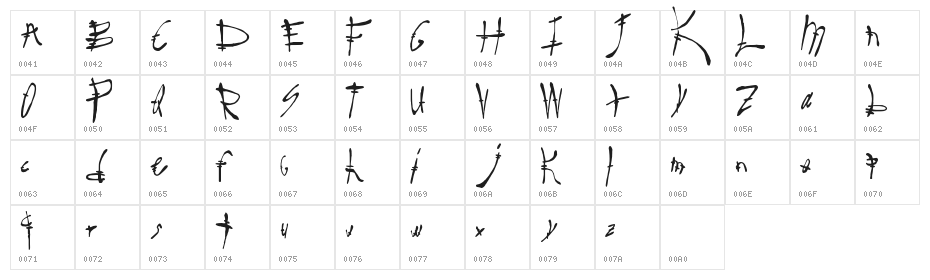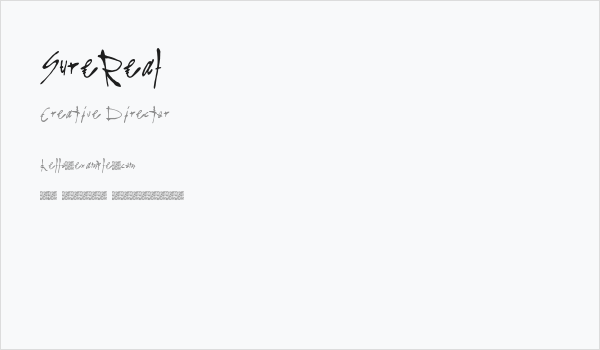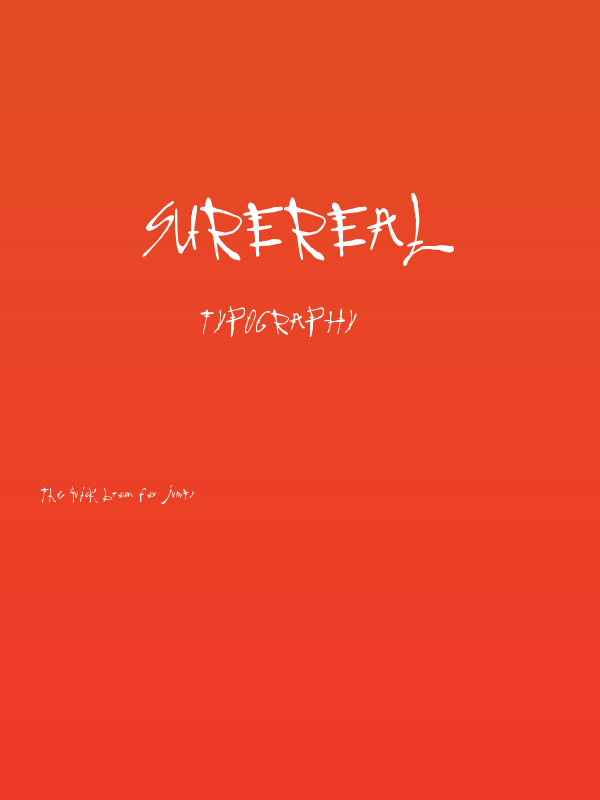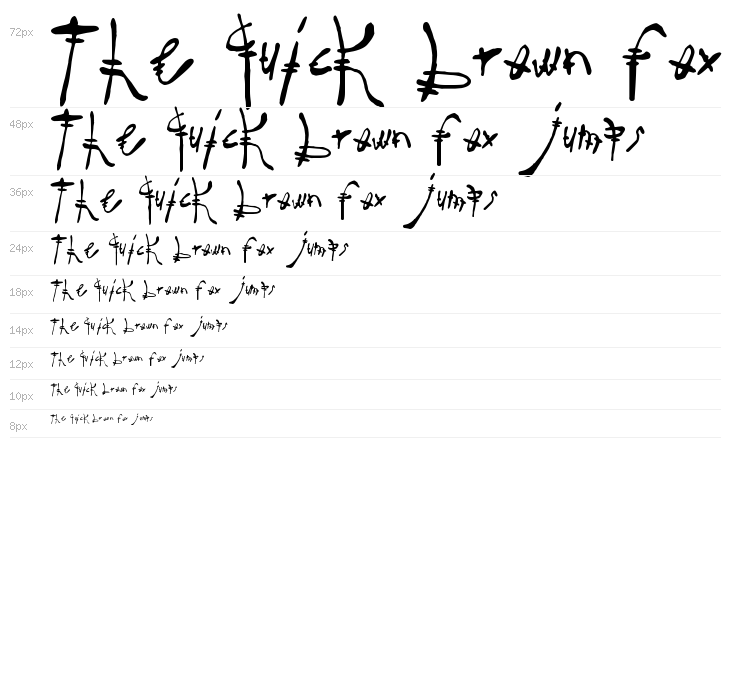
SureReal Font
| Anwendungsfall | Logos, Headlines, Artistic projects |
| Vorgeschlagene Projekte | Ideal for album covers, graffiti art, posters, and any project needing a bold, artistic touch. |